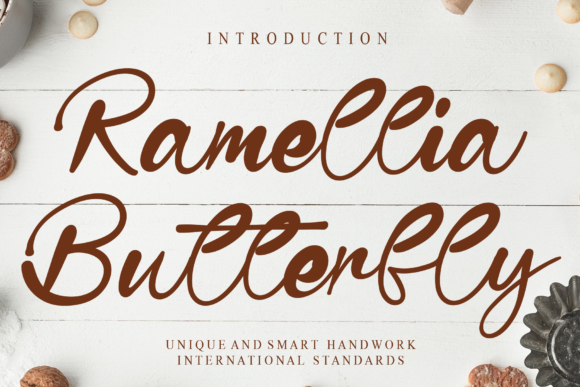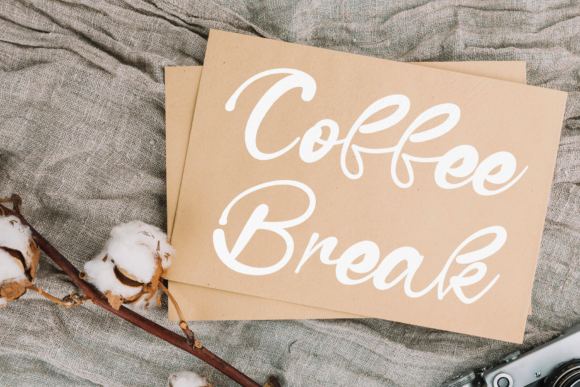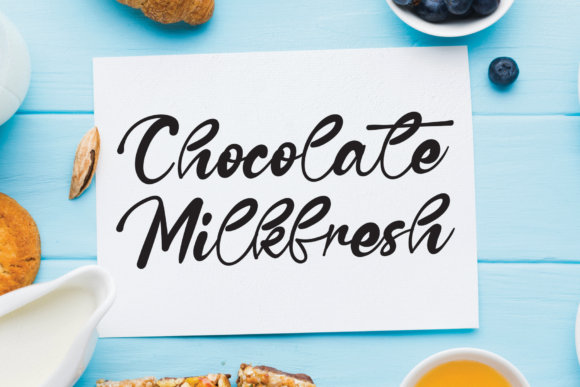
Ramellia Butterfly Font
Certainly! Ramellia Butterfly is a stunning handwritten font that captures elegance and delicacy in every stroke. Its unique design and intricate swashes add a touch of sophistication and grace to any project. Whether you’re creating personalized letterheads, eye-catching titles, or elegant stationery, this font will make your designs stand out.
The flowing curves and intricate details of Ramellia Butterfly make it a versatile choice for a wide range of crafty ideas. It lends a sense of elegance and refinement to wedding invitations, creating a romantic and captivating atmosphere. Its delicate nature is also perfect for adding a touch of beauty to greeting cards, making them truly memorable and heartfelt.
Additionally, Ramellia Butterfly’s versatility extends to branding and marketing materials. It can be used to create distinctive logos that convey a sense of sophistication and artistry. Whether you’re designing labels, signage, or packaging, this font will elevate your brand and leave a lasting impression on your audience.
In summary, Ramellia Butterfly is not only elegant and dainty but also versatile and captivating. With its sweet and delicate swashes, this font is a perfect choice for adding a touch of sophistication and charm to your crafty projects, from letterheads and titles to stationery and beyond.